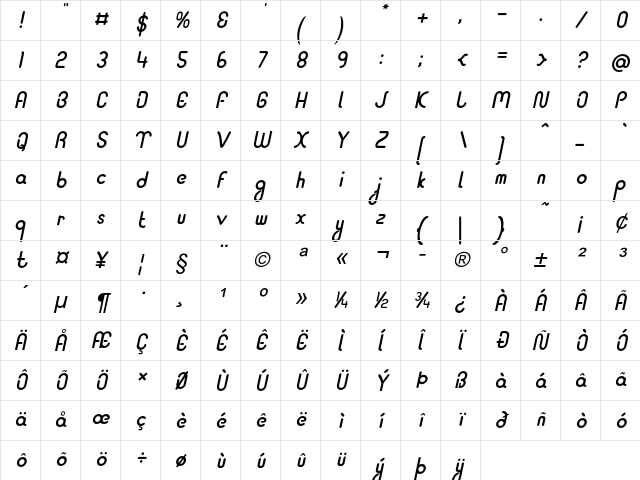
Apropo Italic
Apropo Family
Design Context for Apropo
Apropo is a composed and adaptable typeface that performs quietly and consistently across a wide range of design contexts. The slanted form adds forward momentum and visual energy.
Pro Tip: Use Apropo for emphasis, pull quotes, and subheadings where its slanted energy can add rhythm to the layout.